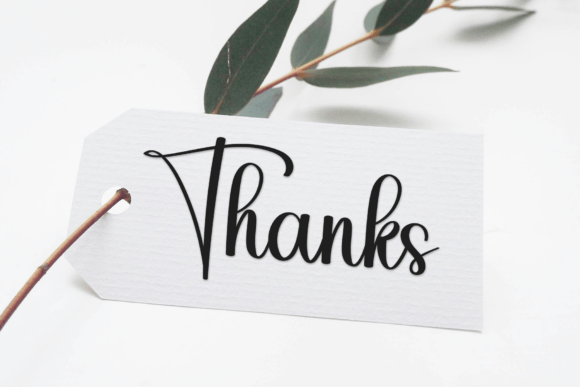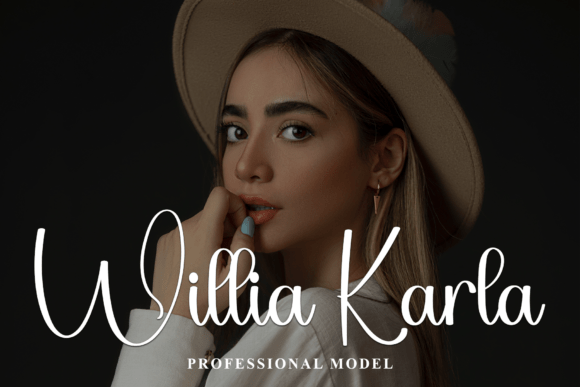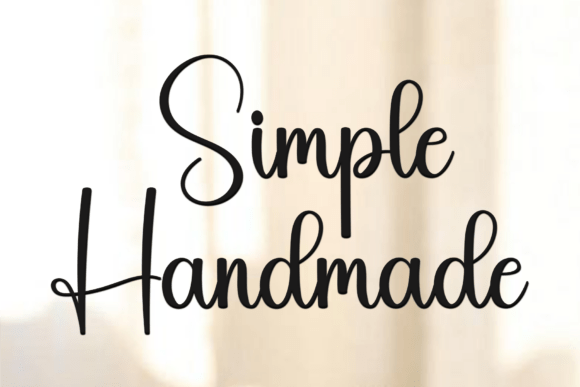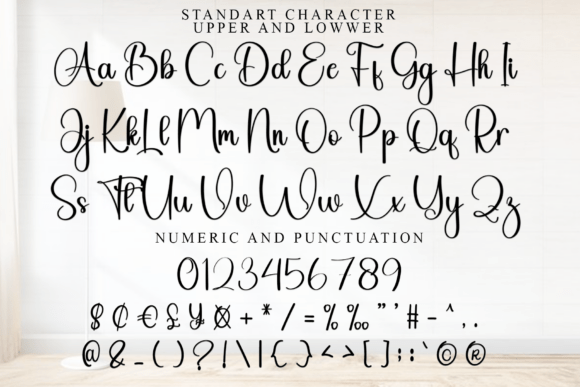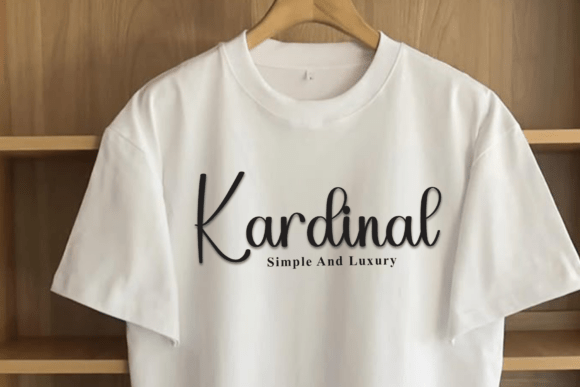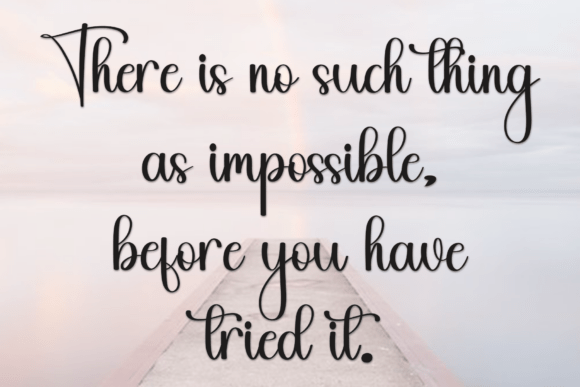
Introducing Gravity Font: The Ultimate Holiday Typeface
The holiday season is upon us, and what better way to get into the spirit than with a festive and merry typeface? Look no further than Gravity Font, a decorative font that captures the essence of the holiday season with its whimsical flair and enchanting charm. In this article, we’ll dive into the world of Gravity Font, exploring its features, uses, and benefits for designers and crafters alike.
Gravity Font is a carefully crafted typeface designed to bring a touch of magic to your designs. Its decorative elements and whimsical flair evoke the nostalgia and cheer of the holiday season, making it the perfect choice for greeting cards, gift tags, and holiday-themed projects. Whether you’re a designer, crafter, or DIY enthusiast, Gravity Font is sure to add a dash of festive fun to your creations.
Gravity Font is specifically designed with the holiday season in mind. Its playful and enchanting charm makes it ideal for a wide range of projects, including:
- Greeting cards: Create personalized and festive greeting cards that will delight your friends and family.
- Gift tags: Add a touch of whimsy to your gift tags and make your presents stand out.
- Holiday-themed projects: From invitations to party decorations, Gravity Font is the perfect choice for any holiday-themed project.
- Access a wide range of decorative elements, including swashes, flourishes, and ornaments.
- Create unique and personalized designs with ease.
- Experiment with different glyph combinations to add an extra touch of magic to your designs.
Gravity Font offers a range of benefits for designers and crafters, including:
In conclusion, Gravity Font is a festive and merry typeface that captures the spirit of the holiday season. With its decorative elements, whimsical flair, and PUA encoding, it’s the perfect choice for designers and crafters looking to add a touch of enchantment to their designs. Whether you’re creating greeting cards, gift tags, or holiday-themed projects, Gravity Font is sure to bring a cheerful and nostalgic ambiance to your words. So why wait? Let your typography shine with the magic of Gravity Font!